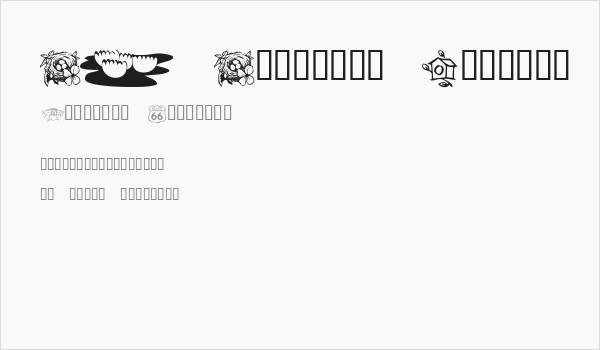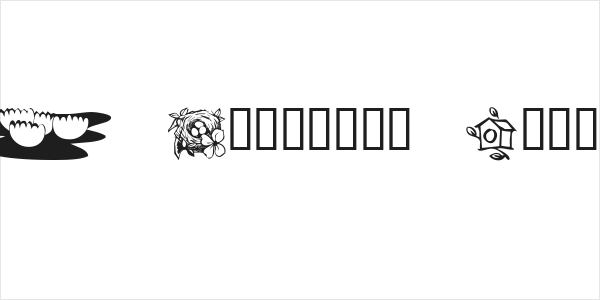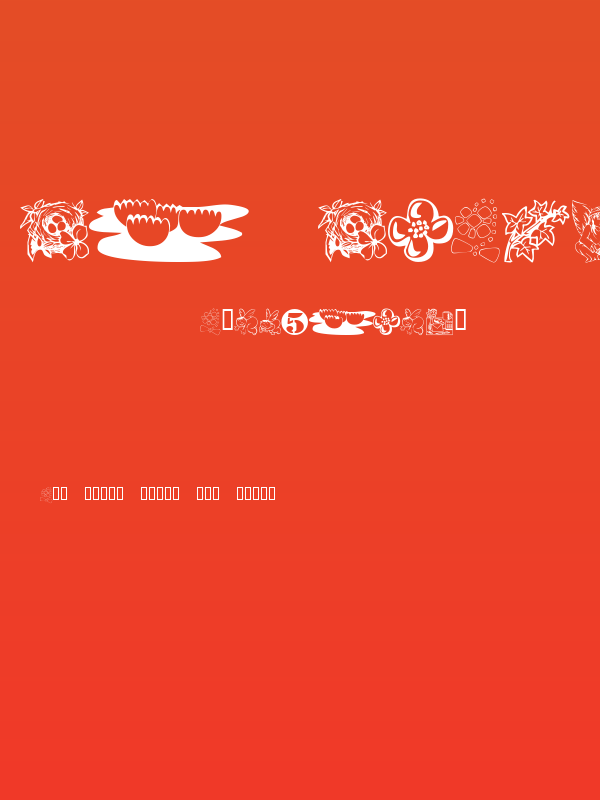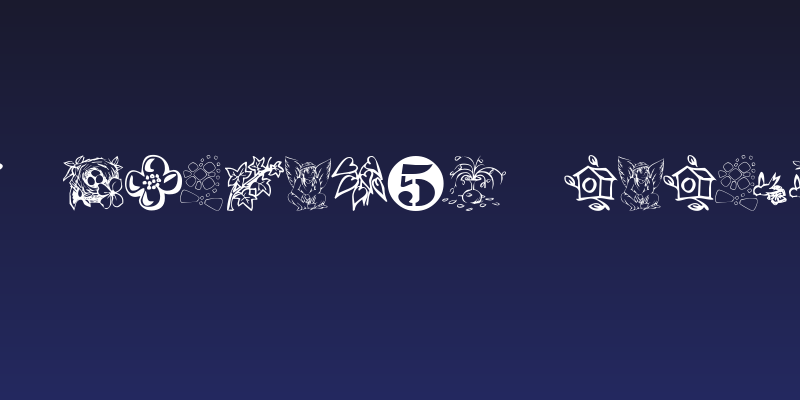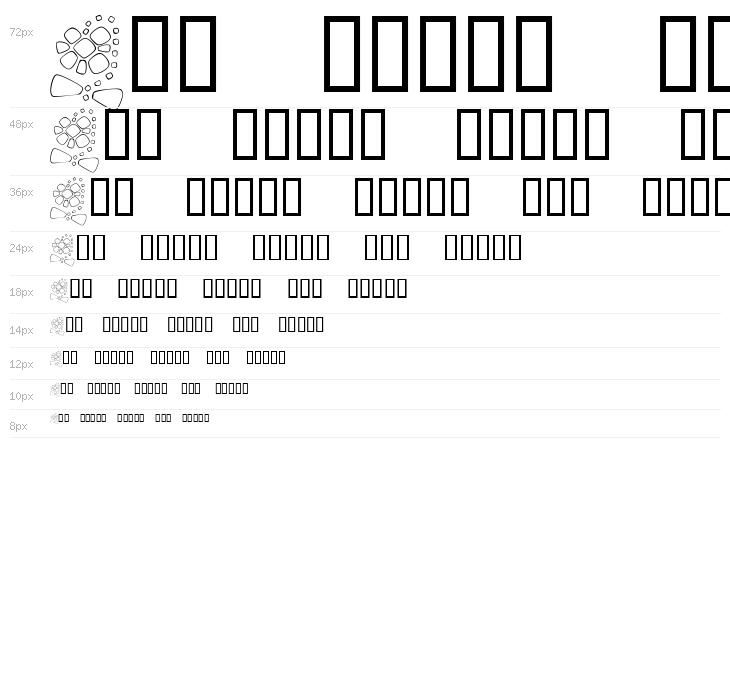
KR Katlings Fifteen Font
KR Katlings Fifteen Description
A decorative dingbat font featuring a variety of whimsical illustrations such as flowers, animals, Route 66 signs, houses, numbers, and playful nature scenes. The glyphs are highly detailed, mostly outlined with some filled elements, and each character represents a unique pictorial design rather than a standard letterform.
| Overall Style | Decorative, Whimsical |
| Use Case | Decorative elements, Borders, Illustrative accents |
| Proposed Projects | Scrapbooking, children's books, greeting cards, decorative borders, craft projects. |